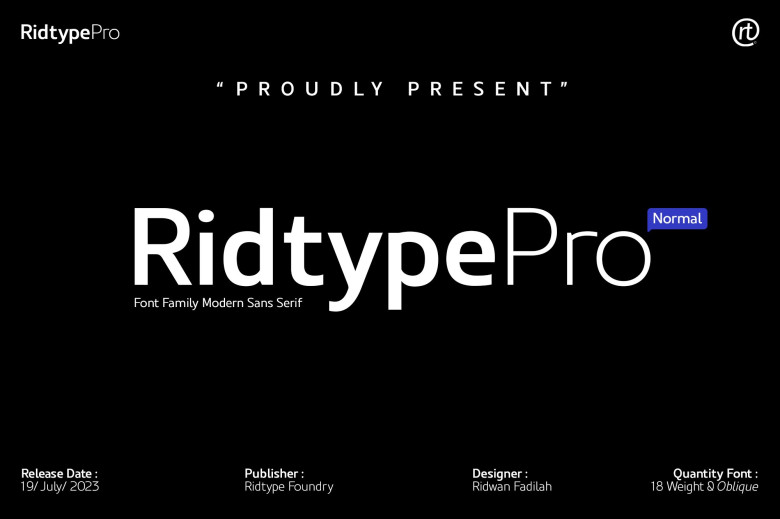
Ridtype Pro Font
Ridtype PRO is an original sans-serif font designed specifically for our brand and will serve all roles necessary within it – typography, texting and printing units alike. Featuring semi-classic modern category type features.
This font is ideal for both contemporary and traditional businesses. Designed to its best abilities in terms of letter design and weight.
Ridtype Pro Sans Serif Font